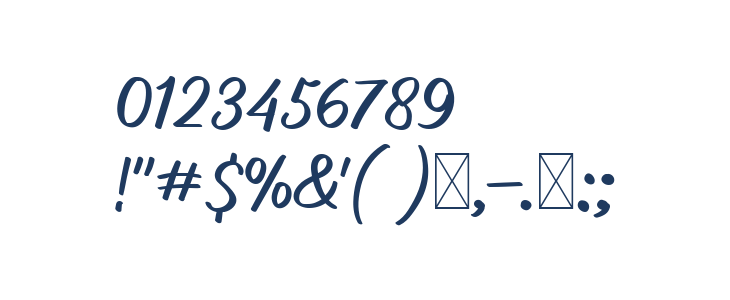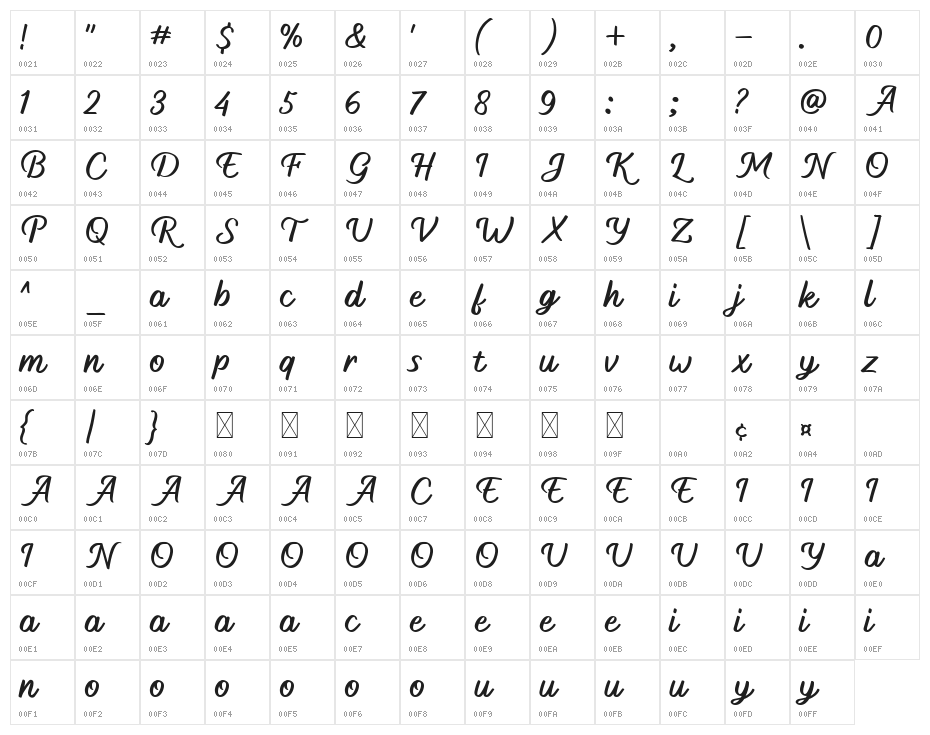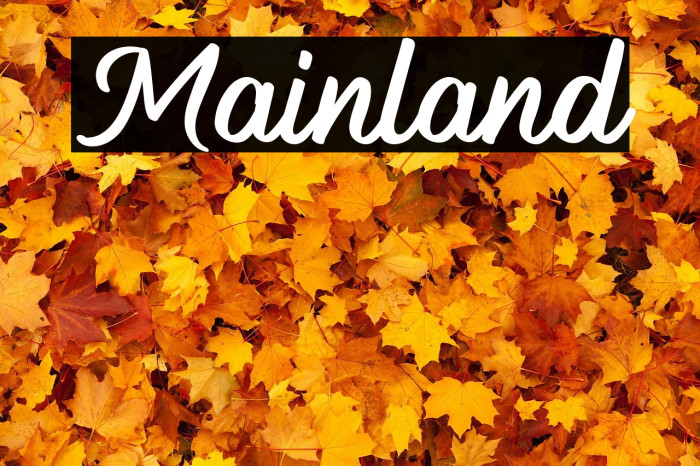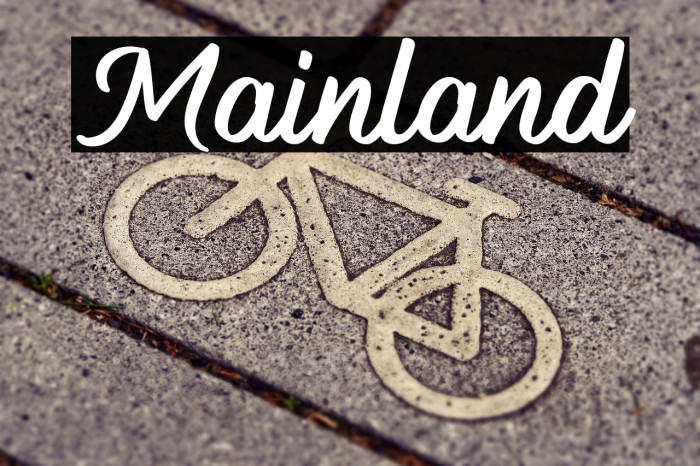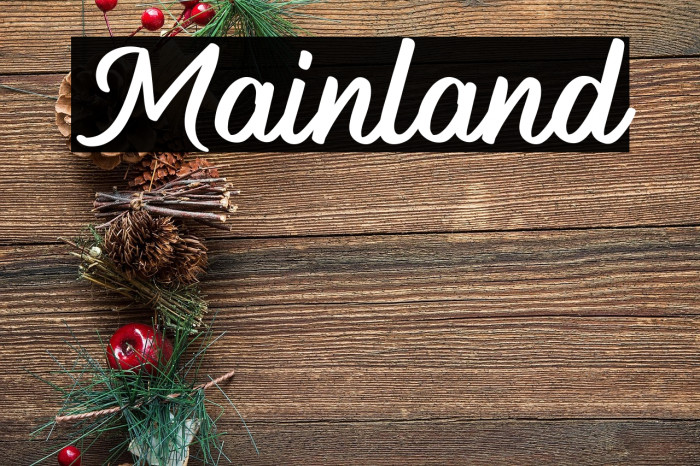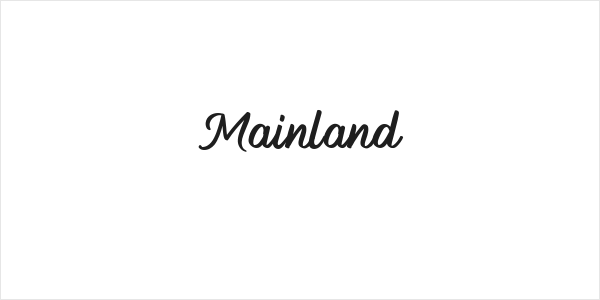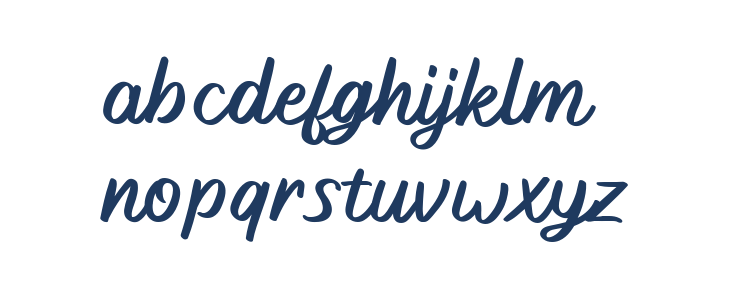
Mainland Font
Mainland Description
This font features a lively and flowing script style, characterized by its elegant, cursive letterforms. The uppercase letters exhibit a graceful, sweeping motion, while the lowercase letters maintain a consistent, fluid connection, enhancing the overall cohesiveness of the text. The numerals are designed with a similar flair, ensuring they blend seamlessly with the alphabetic characters. Special characters retain the same stylistic elements, providing a harmonious appearance across all glyphs. The font's design is both sophisticated and approachable, making it suitable for a variety of creative applications.
| Overall Style | Elegant |
| Use Case | Logos, Invitations, Decorative text |
| Proposed Projects | Ideal for wedding invitations, greeting cards, branding projects, and elegant packaging designs. |